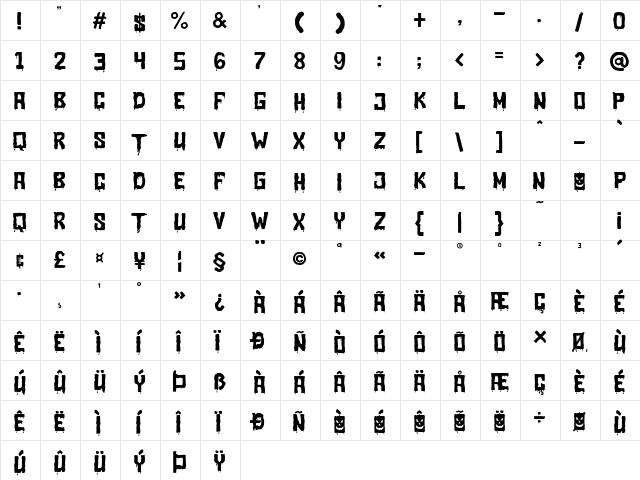
Scary Pumpkin Regular
Design Context for Scary Pumpkin Typeface
Scary Pumpkin leans into the macabre with letterforms designed to disturb and intrigue in equal measure.
Perfect for anything that needs to unsettle — game titles, horror branding, and macabre invitations.
Font Pairing: Pair with a clean neutral sans-serif for body copy to let Scary Pumpkin's character lead without overwhelming the composition.
Pro Tip: Use Scary Pumpkin at larger display sizes for maximum impact. Consider generous tracking to let the disturbing character of each letterform breathe.